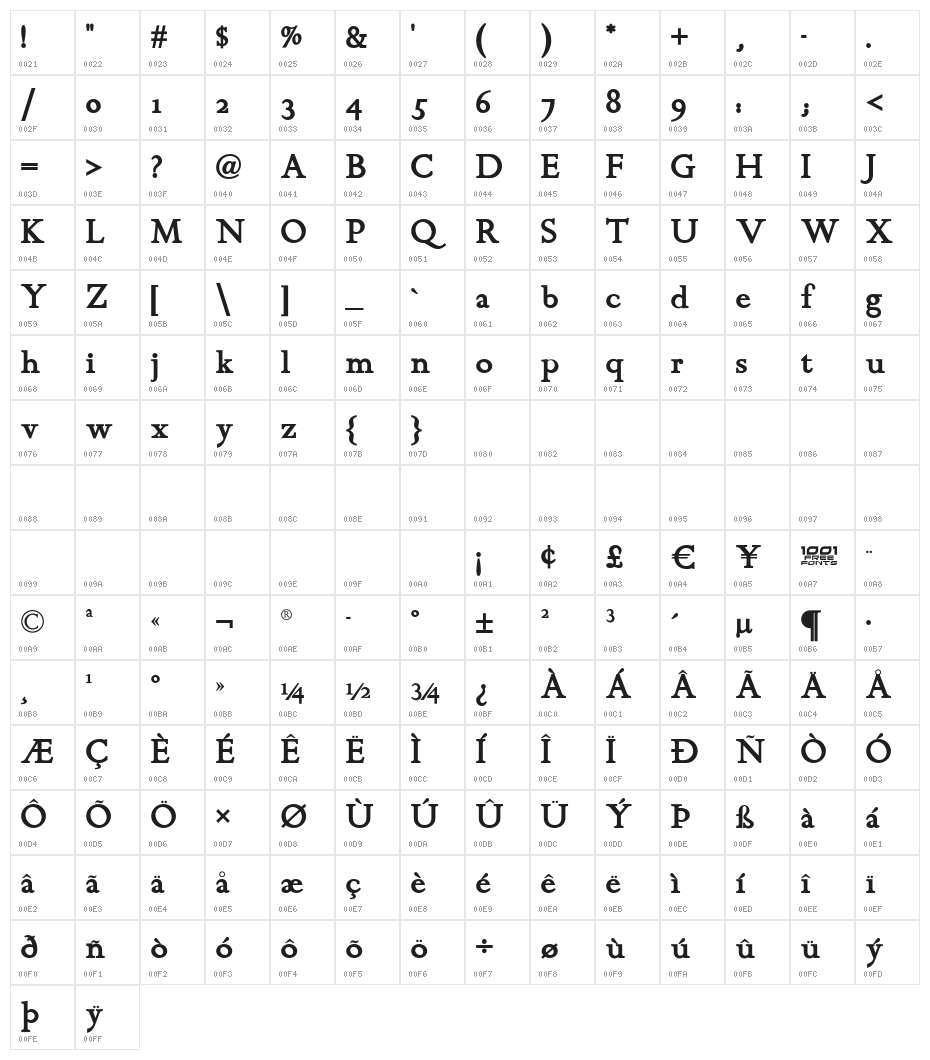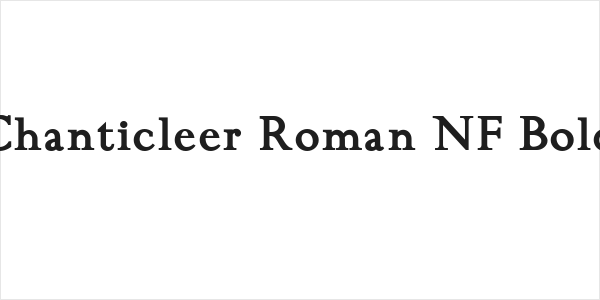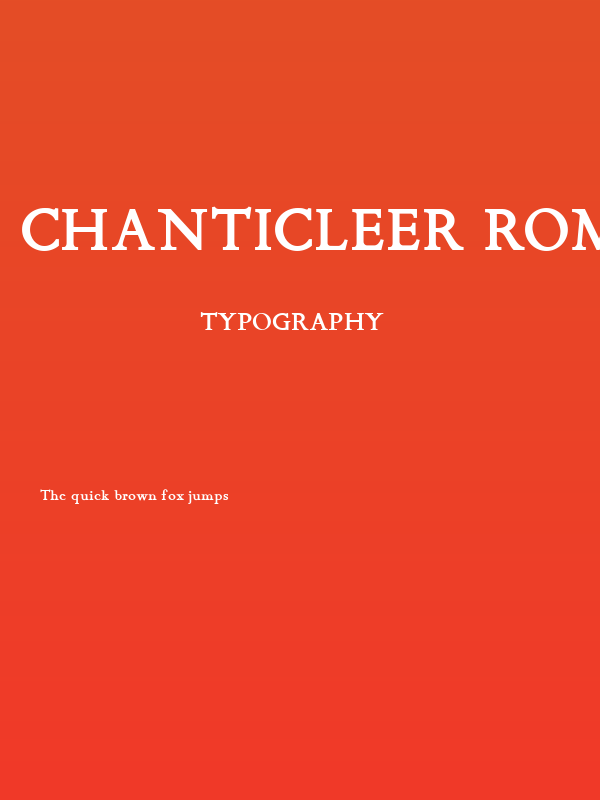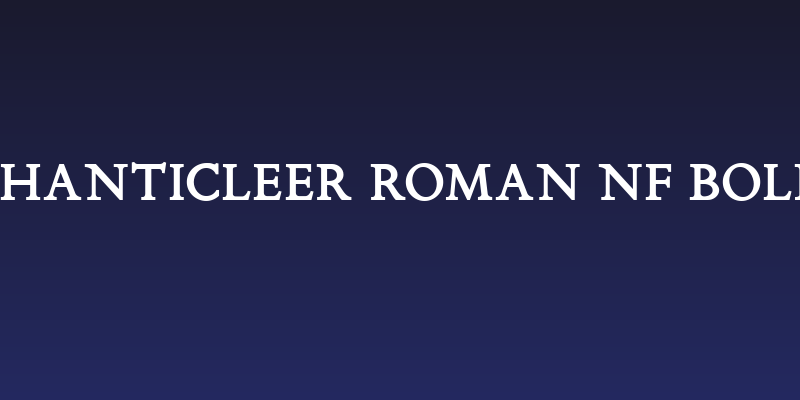
Chanticleer Roman NF Bold Font
Chanticleer Roman NF Bold Description
This font exhibits a classic serif style with bold, pronounced strokes that convey a sense of tradition and authority. The uppercase letters are well-defined with strong vertical lines and subtle curves, while the lowercase letters maintain a consistent thickness, enhancing readability. The numerals are equally robust, ensuring clarity in both print and digital formats. Special characters are elegantly integrated, maintaining the overall aesthetic. The font's design is versatile, suitable for a range of applications from formal documents to creative projects.
| Proposed Projects | Ideal for book covers, formal invitations, branding materials, and editorial design. |